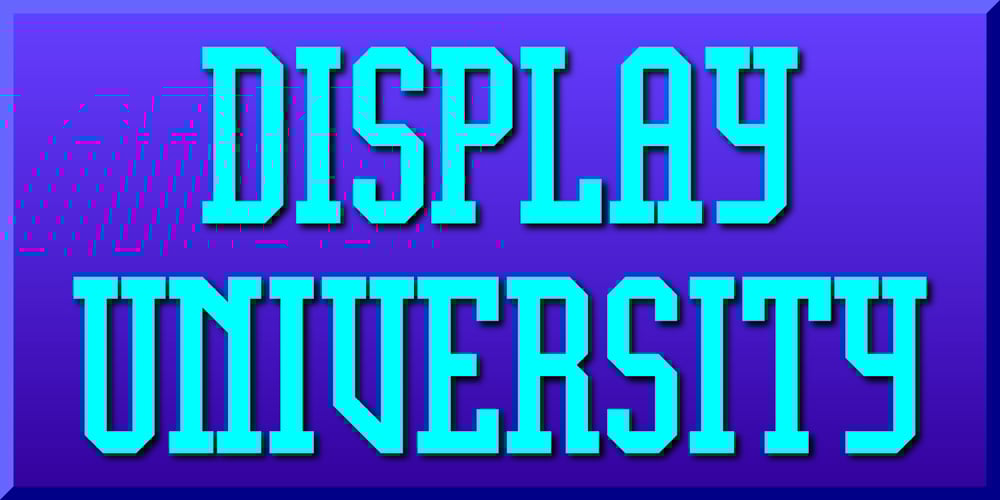
Display University
Display University font
Display University Font Family was designed by Gerald Gallo and published by Gerald Gallo. Display University contains 1 styles and family package options. Display University is a display font not intended for text use. It was designed specifically for display, headline, logotype, branding, and similar applications. The character set is in outline but the uppercase letters are the same shapes but solid.